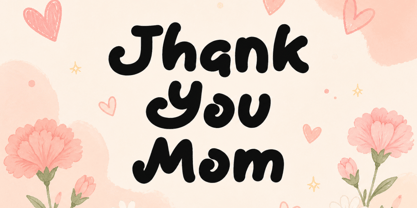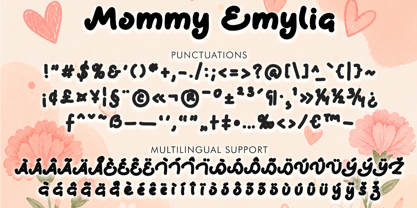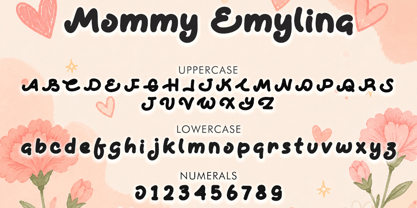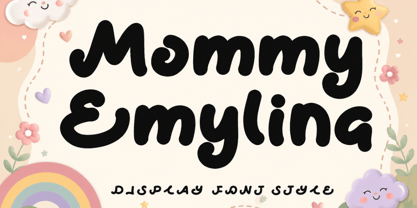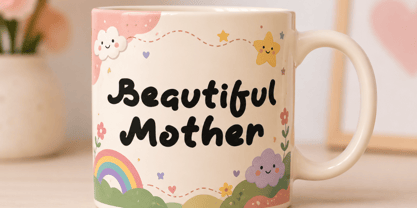
Mommy Emylina
by Yoga Letter
The Mommy Emylina Font Family was designed by Isroni Yoga Prasetya and published by Yoga Letter. Mommy Emylina contains 1 styles. More about this family
Embrace a world of warmth and wonder with Mommy Emylina, a charming display typeface that captures the spirit of "sweet and playful." This font features bold, deeply rounded letterforms characterized by rhythmic, hand-drawn curves and a soft, bubbly structure that feels like a warm hug. With its heavy, structural weight and playful personality, Mommy Emylina is a top choice for independent baby boutique branding, nursery decor, playful stationery designs, and high-impact, "cheerful and charming" social media headers.
Designers: Isroni Yoga Prasetya
Foundry: Yoga Letter